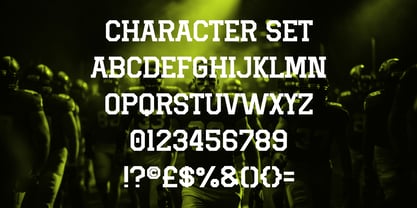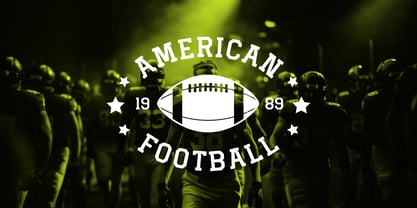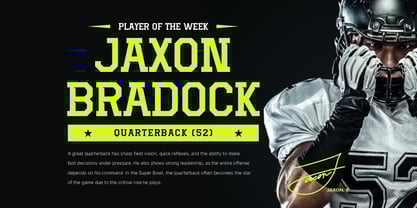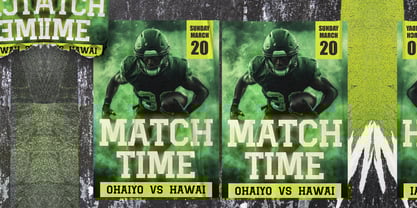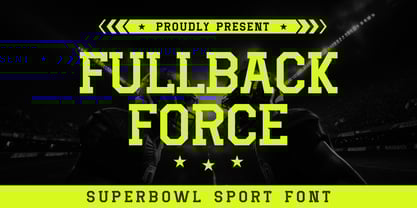
Fullback Force
by Shanaf
Fullback Force - Superbowl Sport Font is a robust and dynamic digital typeface inspired by the adrenaline-packed spirit of American football and the Superbowl. Designed specifically to echo the strength, power, and competitive intensity of rugby-style sports, this font exhibits solid, angular characters with bold serifs and sharp edges, perfectly capturing the essence of athletic vigor. The strong geometric structure and heavy-weighted letters ensure maximum readability, while the stylish, sporty aesthetic provides a compelling visual impact, ideal for any sport-themed project or promotional material.
This versatile and powerful font is the ultimate choice for sports branding, game-day posters, team logos, athletic apparel, and promotional event flyers. Its distinct and impactful design effectively conveys excitement and authority, making it suitable for headlines, magazine covers, film titles, business branding, and packaging. Whether creating captivating match announcements, striking invitations, memorable stickers, or creative crafting projects, Fullback Force brings a professional and energetic vibe. The well-organized layout and clearly defined uppercase alphabet set, complete with numerals and special characters, allow designers to innovate and amplify their message with clarity and style, ensuring every design achieves its intended touchdown.